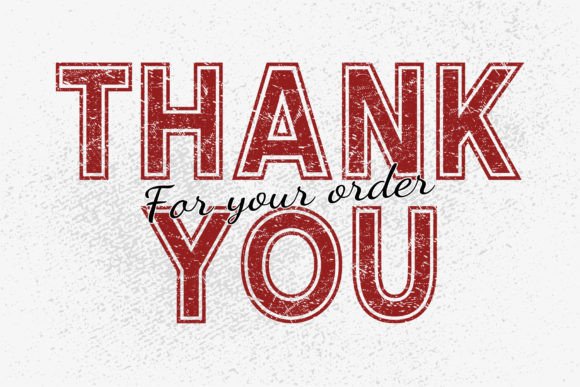
Retro Font
Introducing “Retro Font” – a retro vintage and grunge-distressed display font that will make each of your designs stand out more. Perfect for logos, posters, websites, T-shirts and more. Elevate your projects with this unique font, and you will love the results.